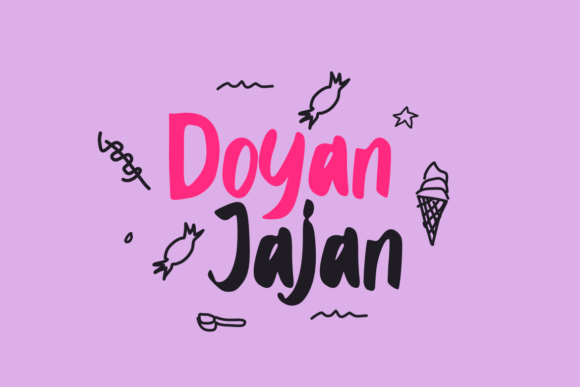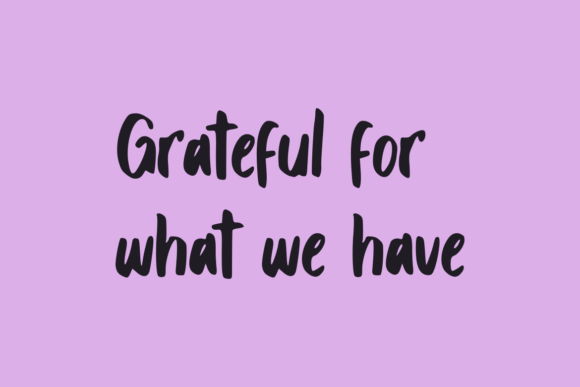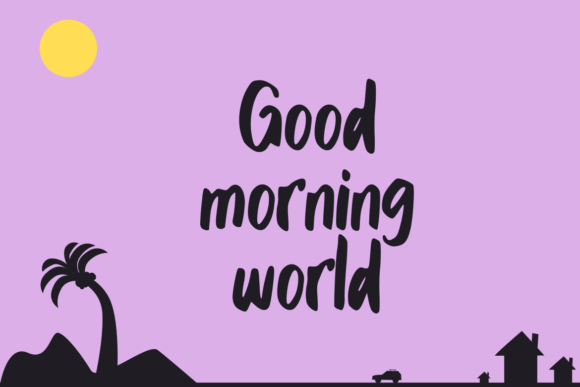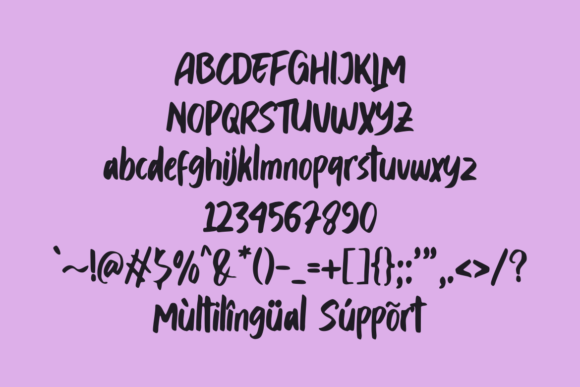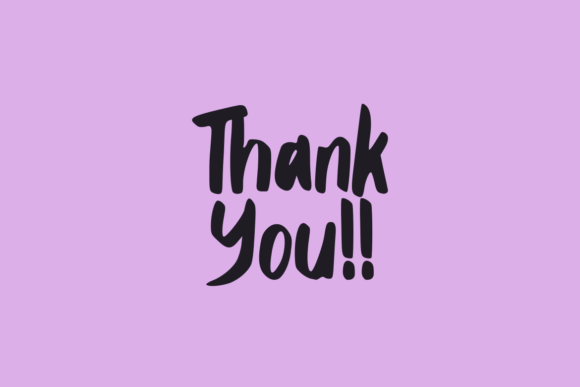
Genduk Smile Font: The Perfect Display Font for Your Design Projects
Are you a designer or crafter looking for a unique and eye-catching font to elevate your design projects? Look no further than the Genduk Smile font! This display font is perfect for any project that requires a touch of personality and whimsy. In this article, we’ll dive into the features and benefits of the Genduk Smile font, and explore how you can use it to take your designs to the next level.
What is Genduk Smile Font?
Genduk Smile is a display font designed to make a statement. With its bold and playful design, this font is sure to grab attention and add a touch of fun to any project. Whether you’re working on a logo, brochure, or social media graphic, the Genduk Smile font is the perfect choice.
Key Features of Genduk Smile Font
- Unique Design: The Genduk Smile font features a one-of-a-kind design that’s sure to stand out from the crowd.
- Playful Personality: This font has a playful and whimsical personality that’s perfect for designs that need a touch of fun.
- High-Quality: The Genduk Smile font is a high-quality font that’s designed to look great in any size or resolution.
Benefits of Using Genduk Smile Font
So why should you choose the Genduk Smile font for your design projects? Here are just a few benefits of using this amazing font:
- Adds Personality: The Genduk Smile font adds a touch of personality and whimsy to any design, making it perfect for projects that need to stand out.
- Versatile: This font is versatile and can be used in a variety of design projects, from logos and brochures to social media graphics and more.
- High-Impact: The Genduk Smile font is designed to make a statement, making it perfect for designs that need to grab attention.
- Easy to Read: Despite its bold design, the Genduk Smile font is easy to read, making it perfect for designs that need to communicate a message.
How to Use Genduk Smile Font
Using the Genduk Smile font is easy! Here are a few tips for incorporating this font into your design projects:
- Pair with Other Fonts: The Genduk Smile font pairs well with other fonts, making it easy to create a unique and visually appealing design.
- Use for Headlines: This font is perfect for headlines and titles, where its bold design can really make a statement.
- Add a Pop of Color: The Genduk Smile font looks great in a variety of colors, so don’t be afraid to add a pop of color to your design.
Design Project Ideas Using Genduk Smile Font
So what can you create with the Genduk Smile font? Here are a few design project ideas to get you started:
- Logos: The Genduk Smile font is perfect for logos that need to make a statement.
- Brochures: Use this font to add a touch of personality to your brochures and flyers.
- Social Media Graphics: The Genduk Smile font is perfect for social media graphics that need to grab attention.
- Posters: This font is great for posters and other large-format designs.
In conclusion, the Genduk Smile font is a unique and versatile display font that’s perfect for any design project that requires a touch of personality and whimsy. With its bold and playful design, this font is sure to grab attention and add a touch of fun to any project. Whether you’re a designer or crafter, the Genduk Smile font is a great choice for any project that needs to stand out from the crowd.